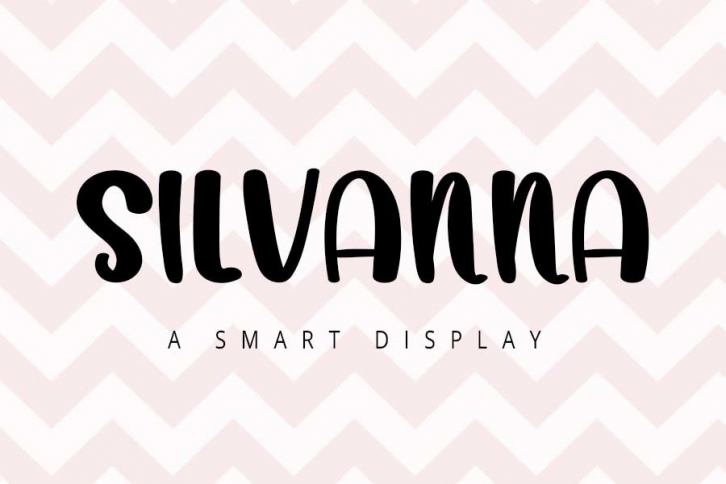
Silvanna is a smart, quirky and adaptable display font. Its informal style and casual vibe will make this font a go-to choice for each of the creations that require a relaxed touch.